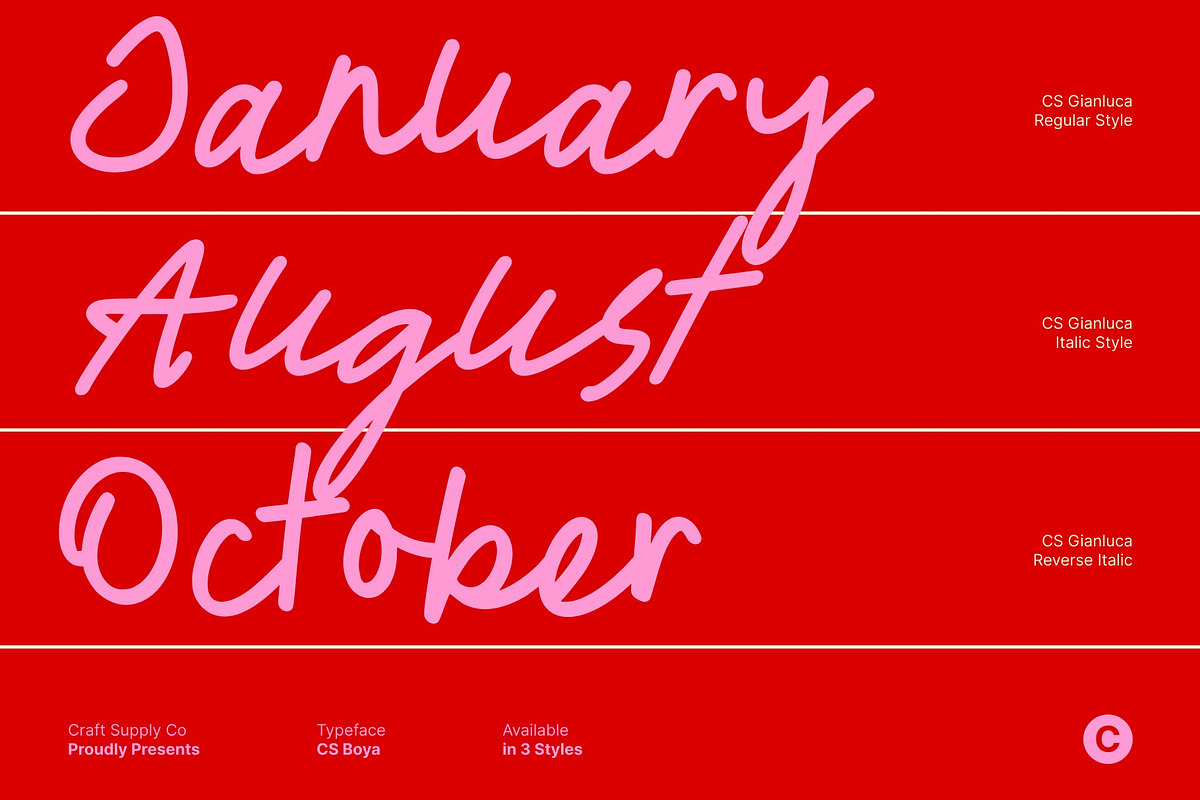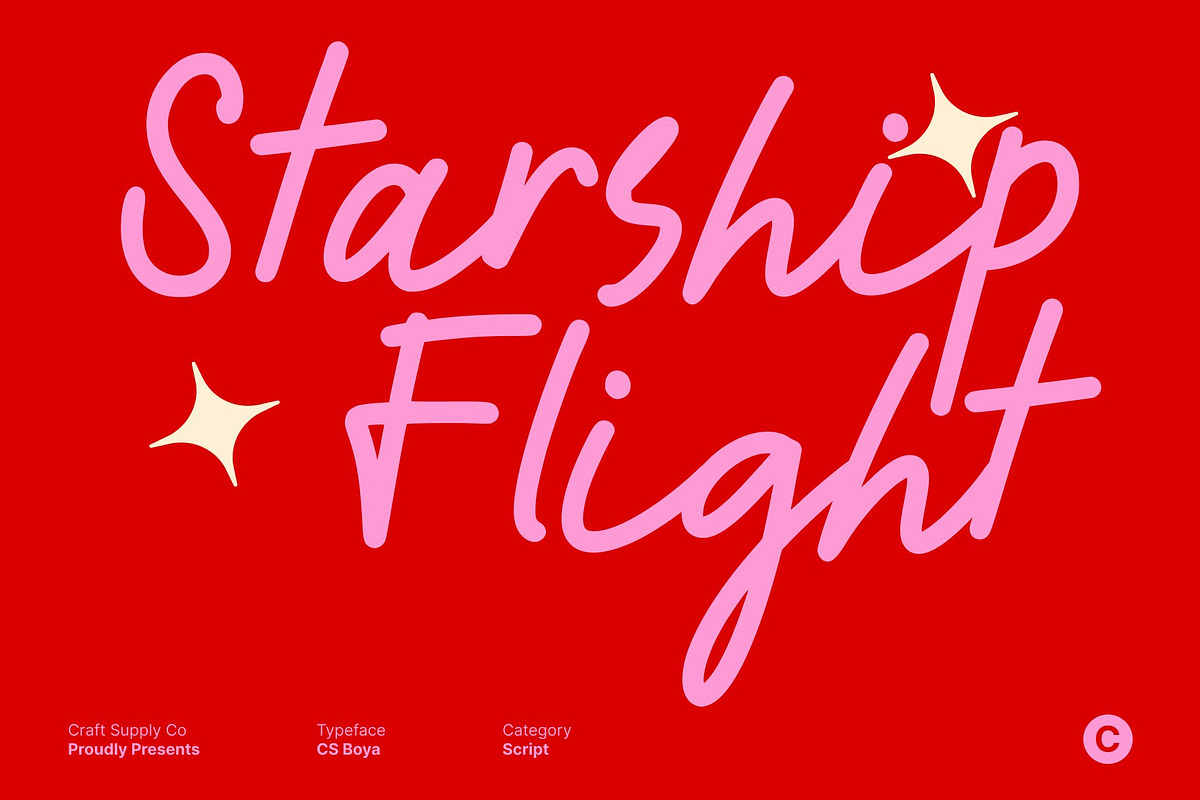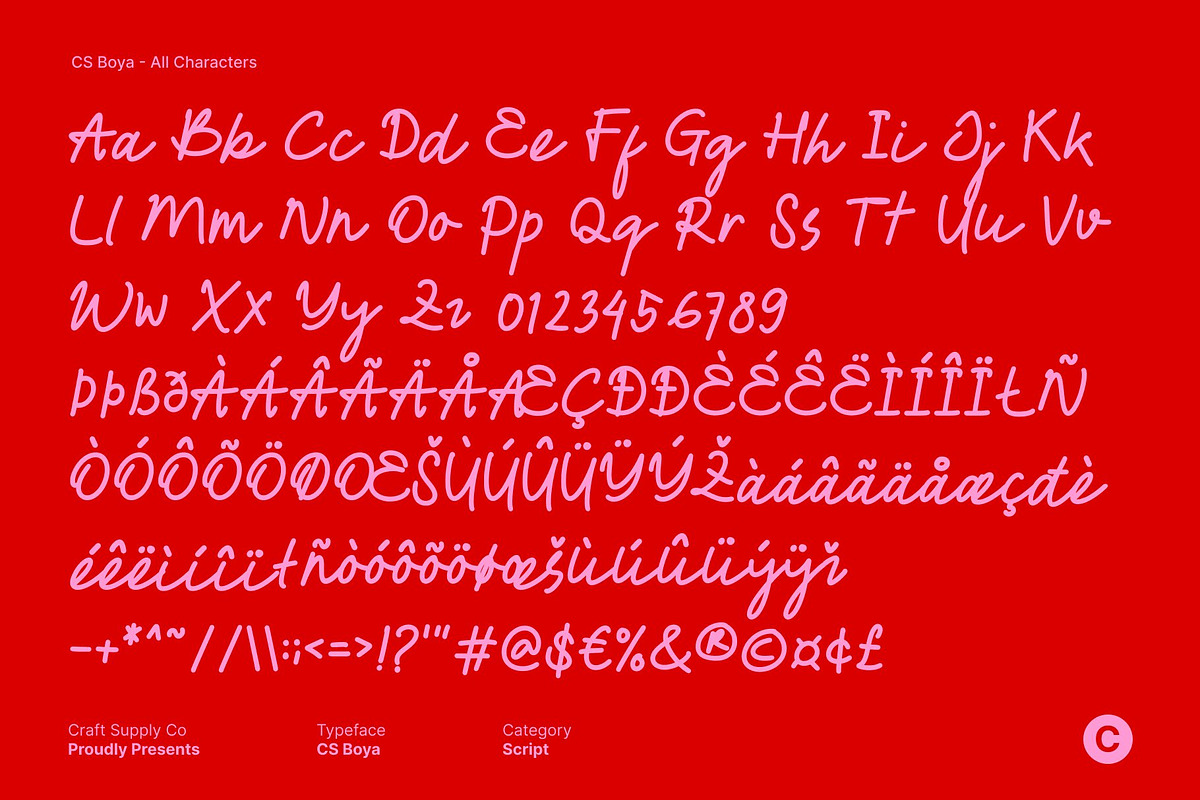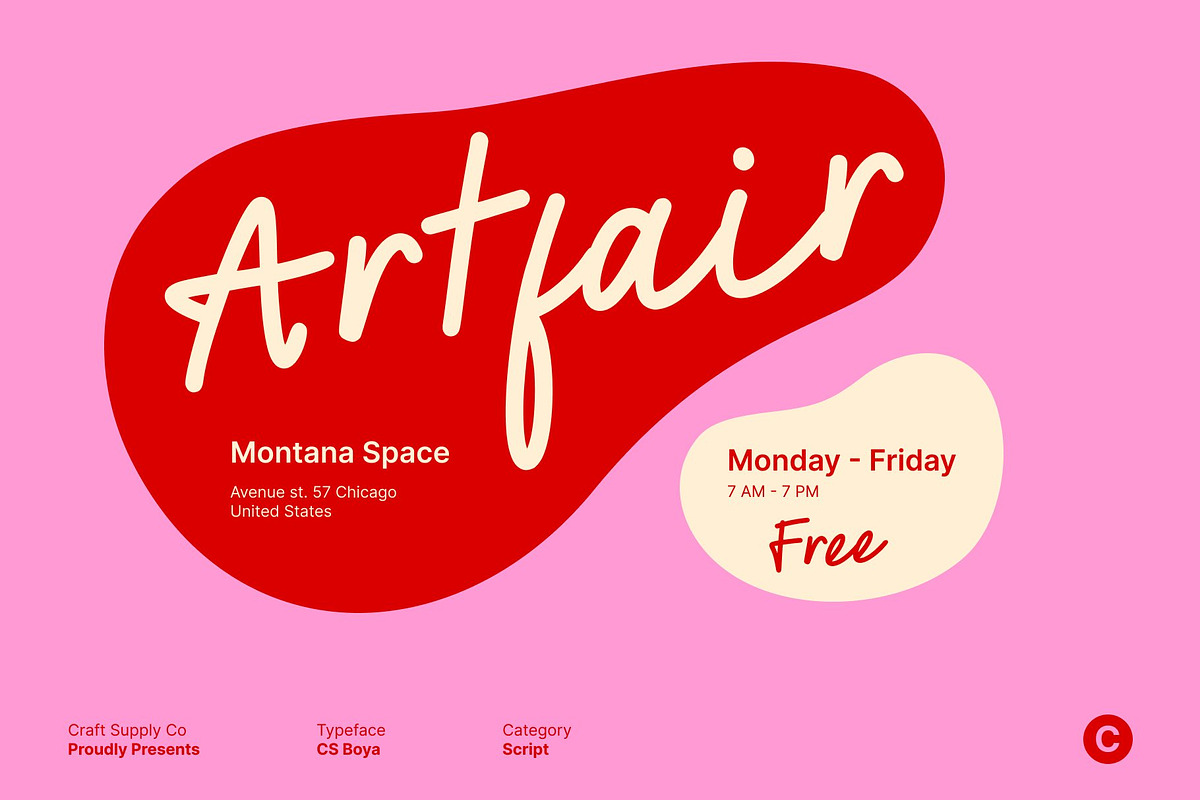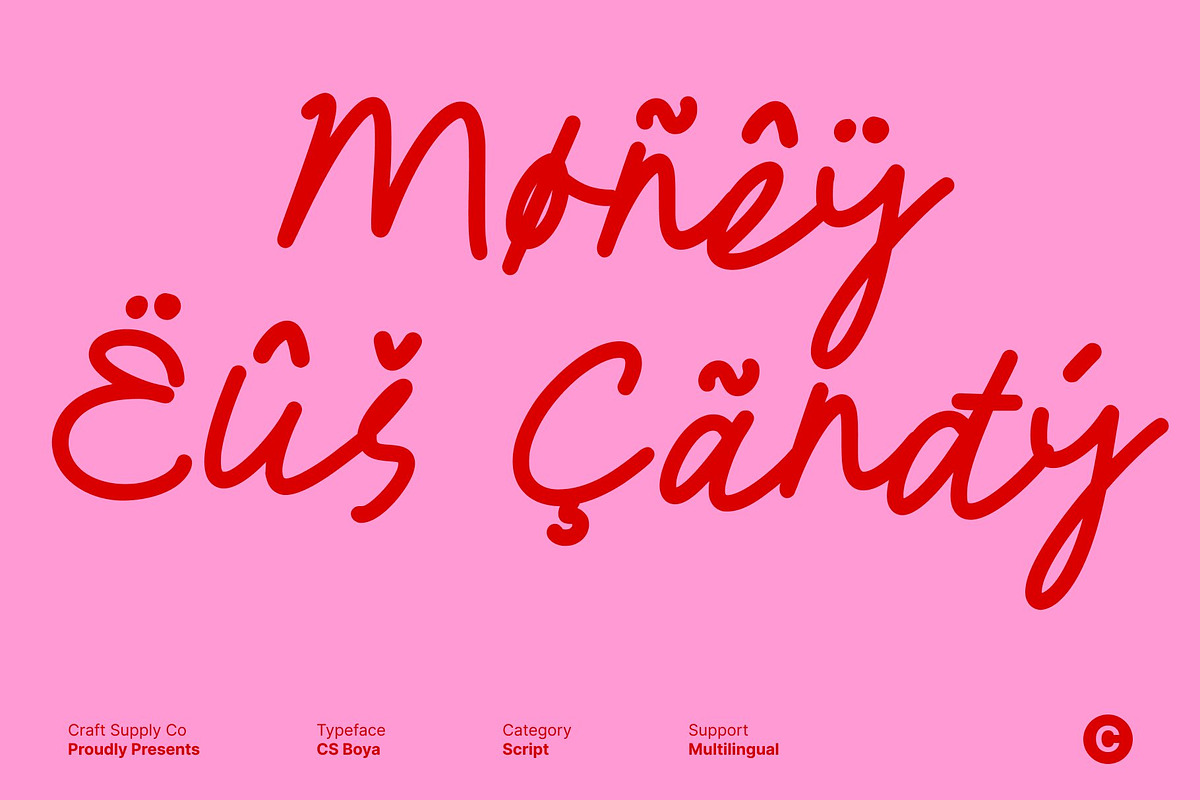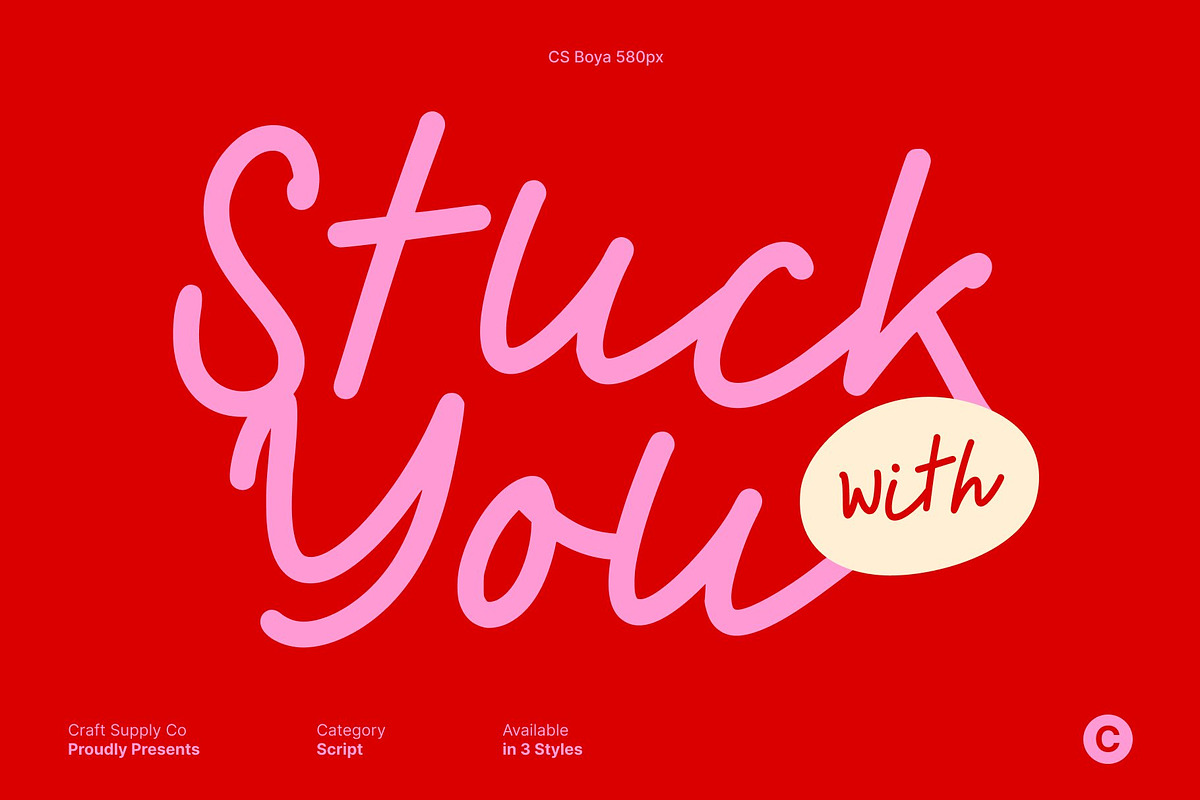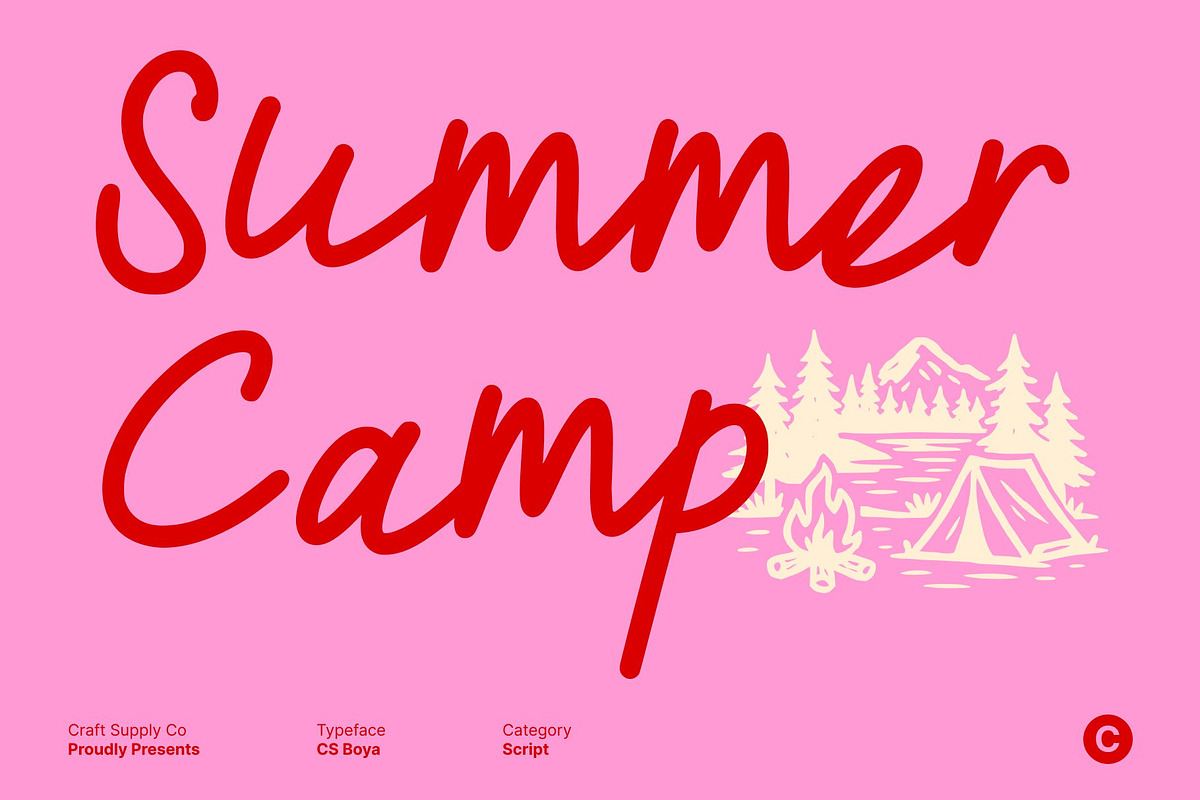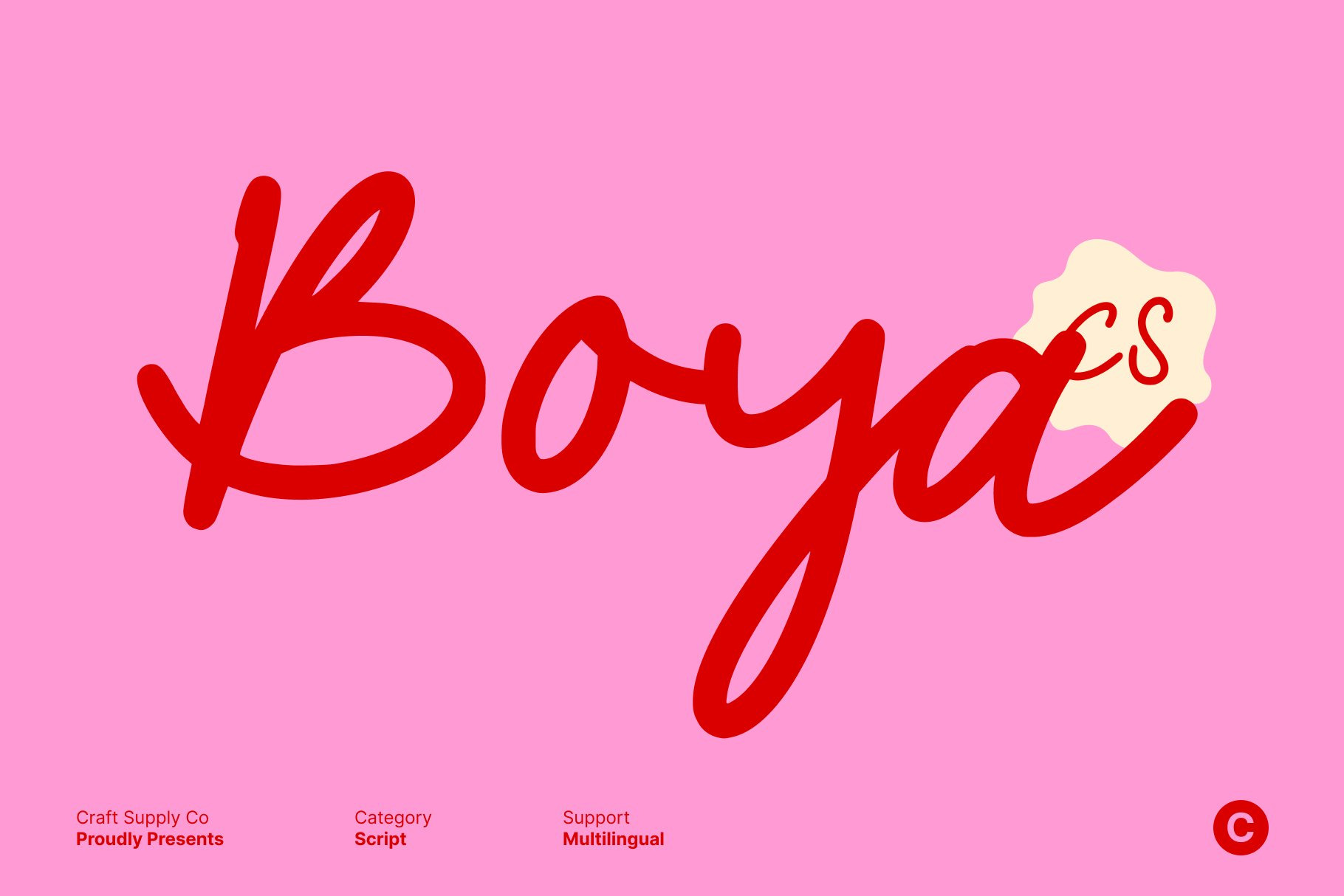
CS Boya – Monoline Script Font
CS Boya – Grace in Every Line: Monoline Script Font with Elegant Flow
Timeless Beauty in Motion This font captures the essence of refined elegance through its smooth monoline strokes and flowing rhythm. Every curve glides effortlessly, creating a graceful movement that feels both romantic and modern. Designed to convey emotion and charm, this script font evokes a sense of sophistication that enhances any visual composition.
Graceful Curves and Refined Balance Crafted with precision and artistry, this font balances fluid motion with structural harmony. Its consistent line weight and gentle curves bring a natural handwritten touch while maintaining clarity and legibility. The result is a script that feels personal yet polished perfect for designers seeking a luxurious handwritten look.
Perfect for Invitations, Branding, and Editorials From wedding invitations and fashion logos to luxury packaging and editorial titles, this font adds a refined flourish to any project. Its elegant flow complements both minimalist and ornate layouts, giving text an effortlessly stylish presence that draws the eye.
Radiate Sophistication and Charm This font isn’t just a script font it’s a celebration of beauty in motion. With its romantic lines and timeless appeal, it transforms words into graceful expressions of design. Perfect for creative professionals seeking a touch of modern elegance, this font embodies sophistication, emotion, and lasting visual allure.
- CS Boya Regular
- CS Boya Italic
- CS Boya Reverse Italic